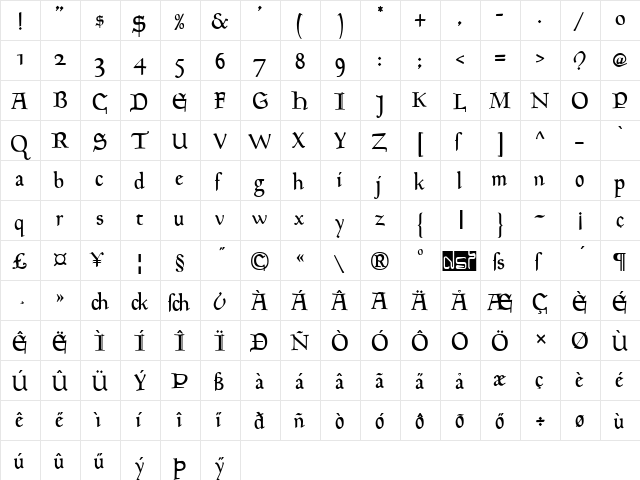
Goudy Mediaeval Regular
Design Context for Goudy Mediaeval Typeface
Goudy Mediaeval is a composed and adaptable typeface that performs quietly and consistently across a wide range of design contexts.